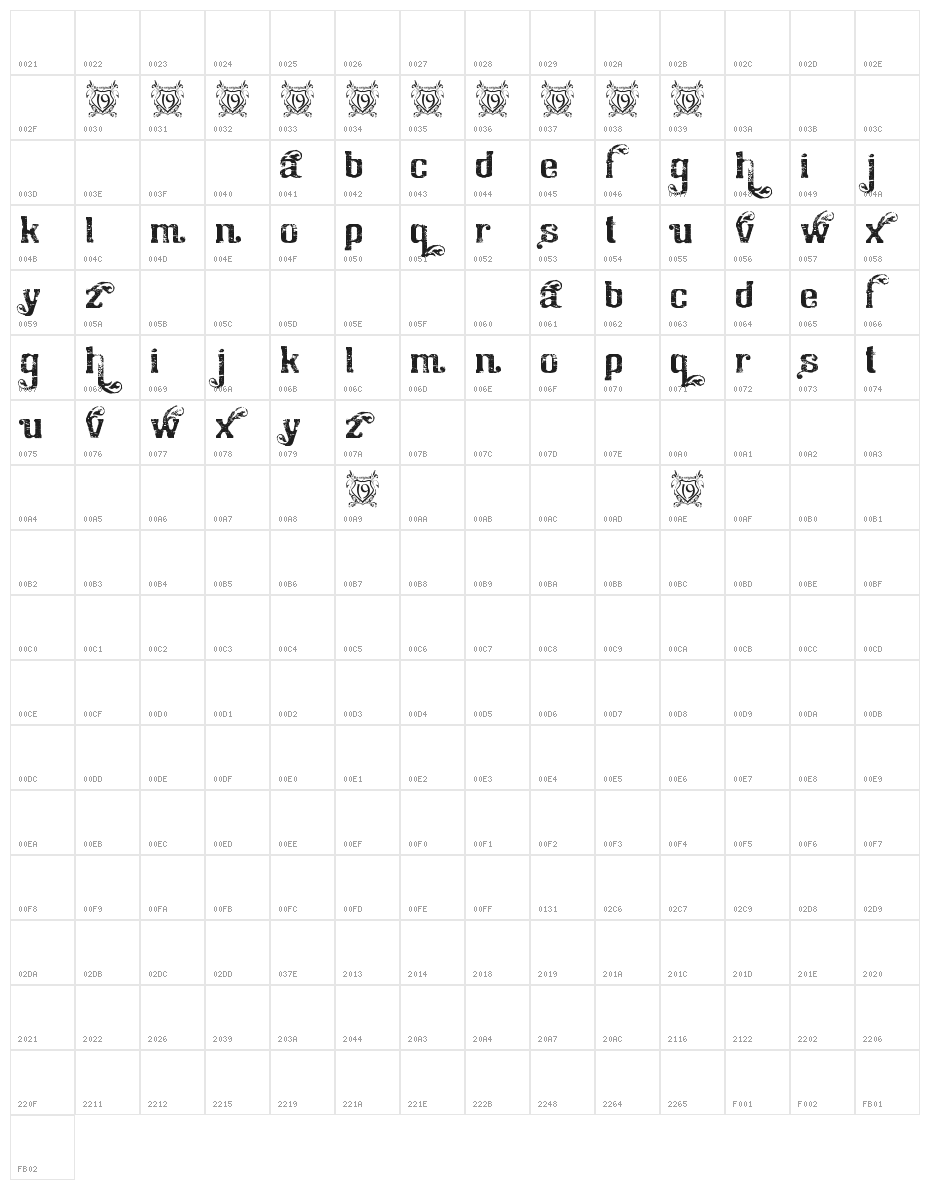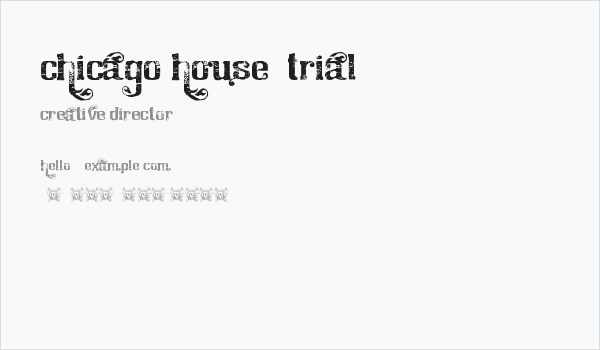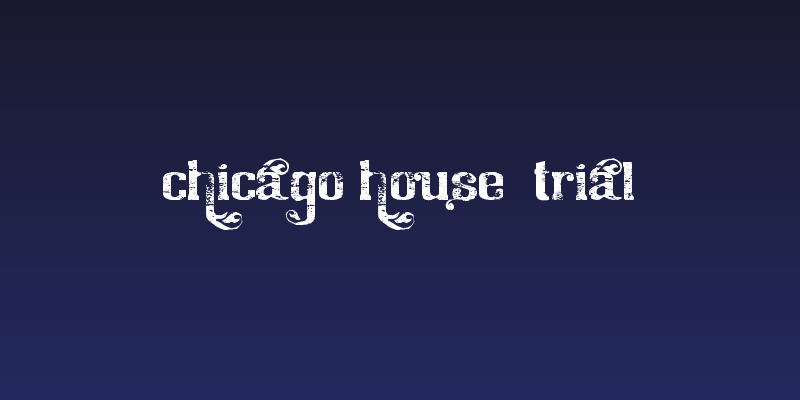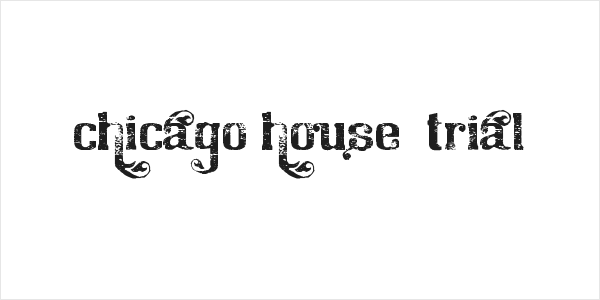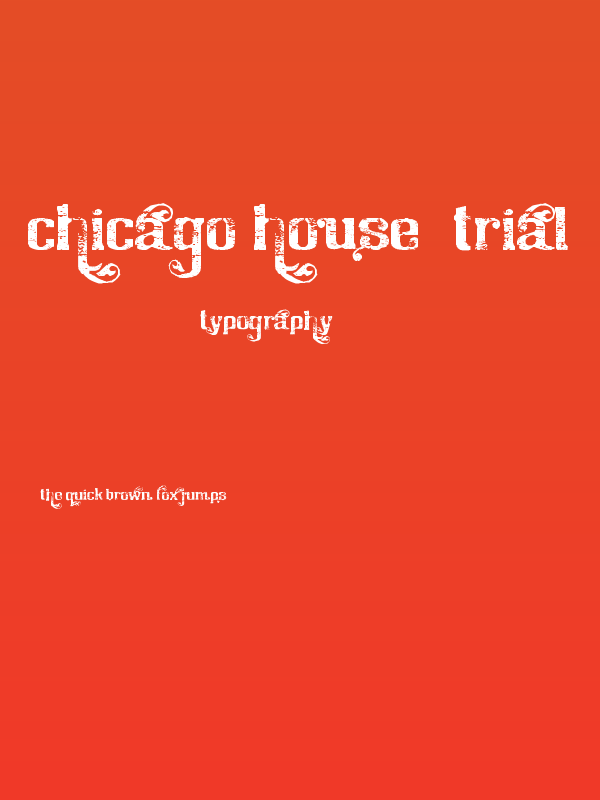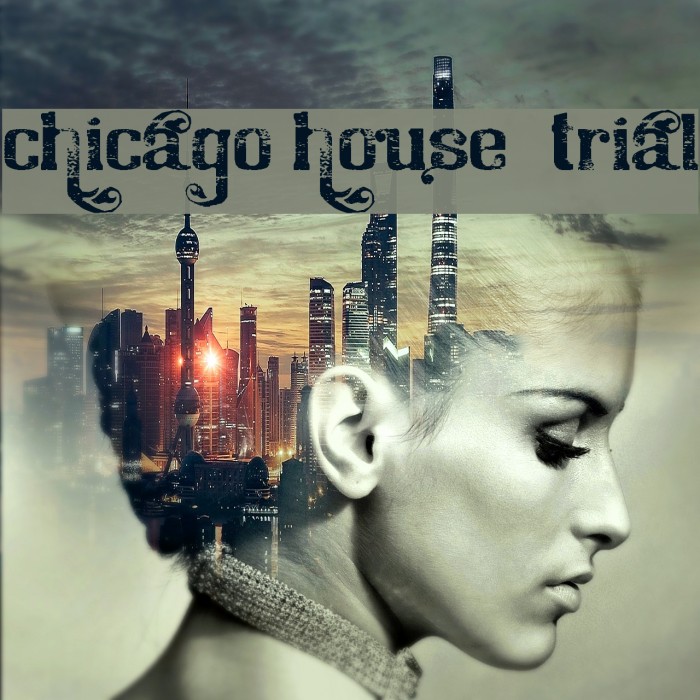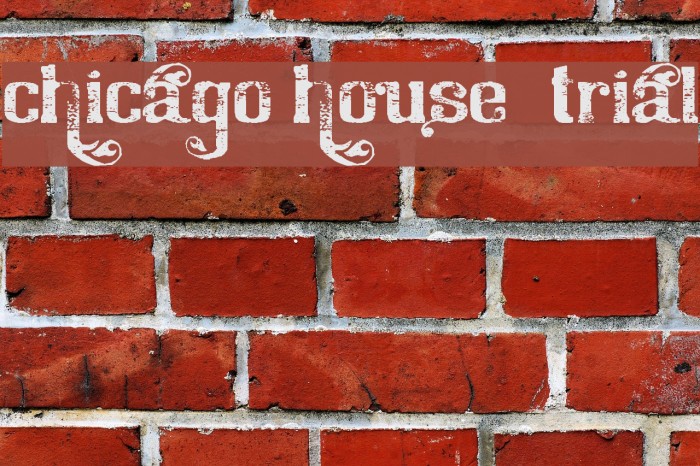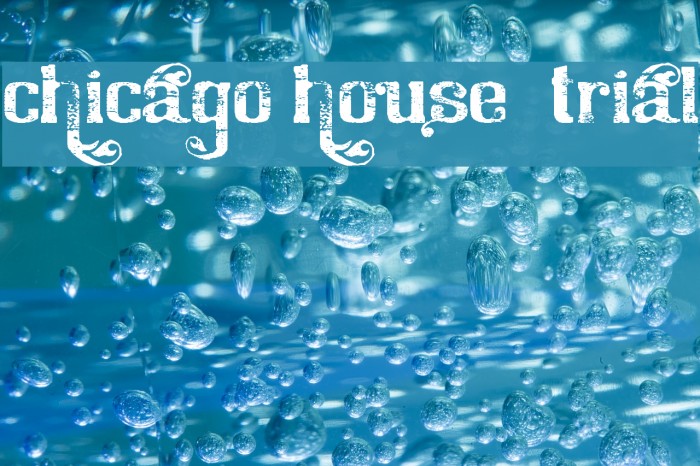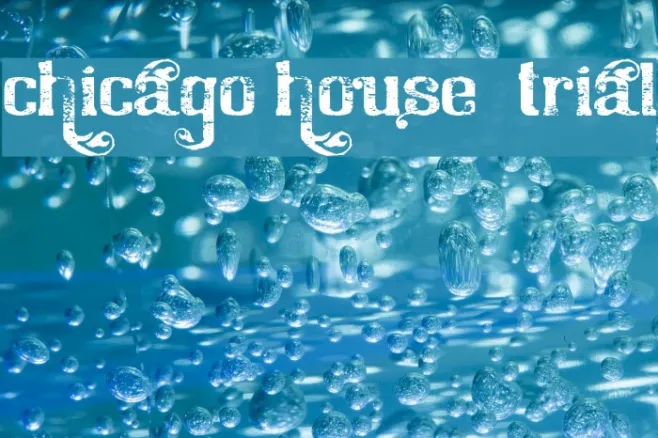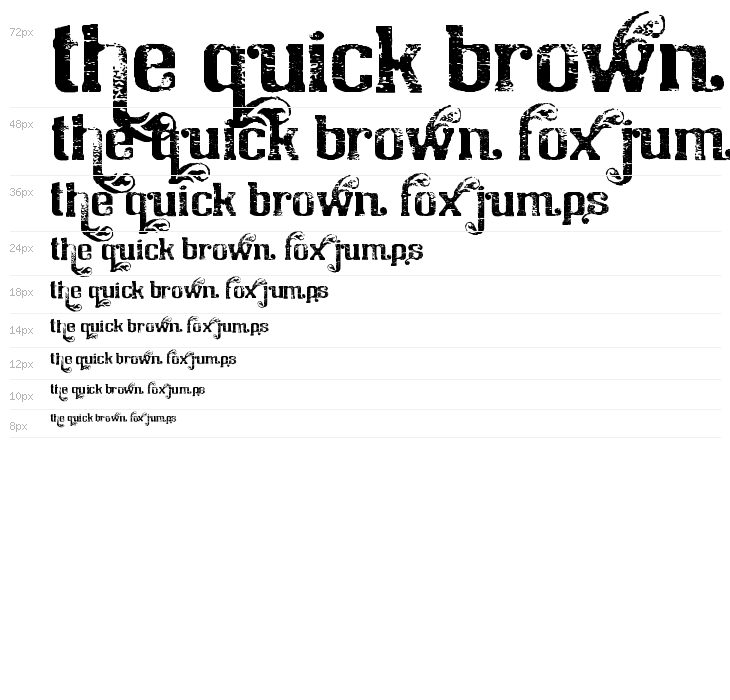
Chicago House_trial Font
Chicago House_trial Description
This font features a bold, distressed style with ornate, decorative elements. The characters are heavily textured, giving them a vintage, worn appearance. Each letter is embellished with intricate flourishes, adding a touch of elegance and complexity. The overall aesthetic is reminiscent of old-world charm, making it suitable for designs that require a historical or antique feel. The font's unique style is eye-catching and can add a distinctive character to any project.
| Use Case | Logos, Posters, Decorative headings |
| Proposed Projects | Ideal for vintage posters, album covers, branding for antique shops, or any project seeking a historical or rustic aesthetic. |